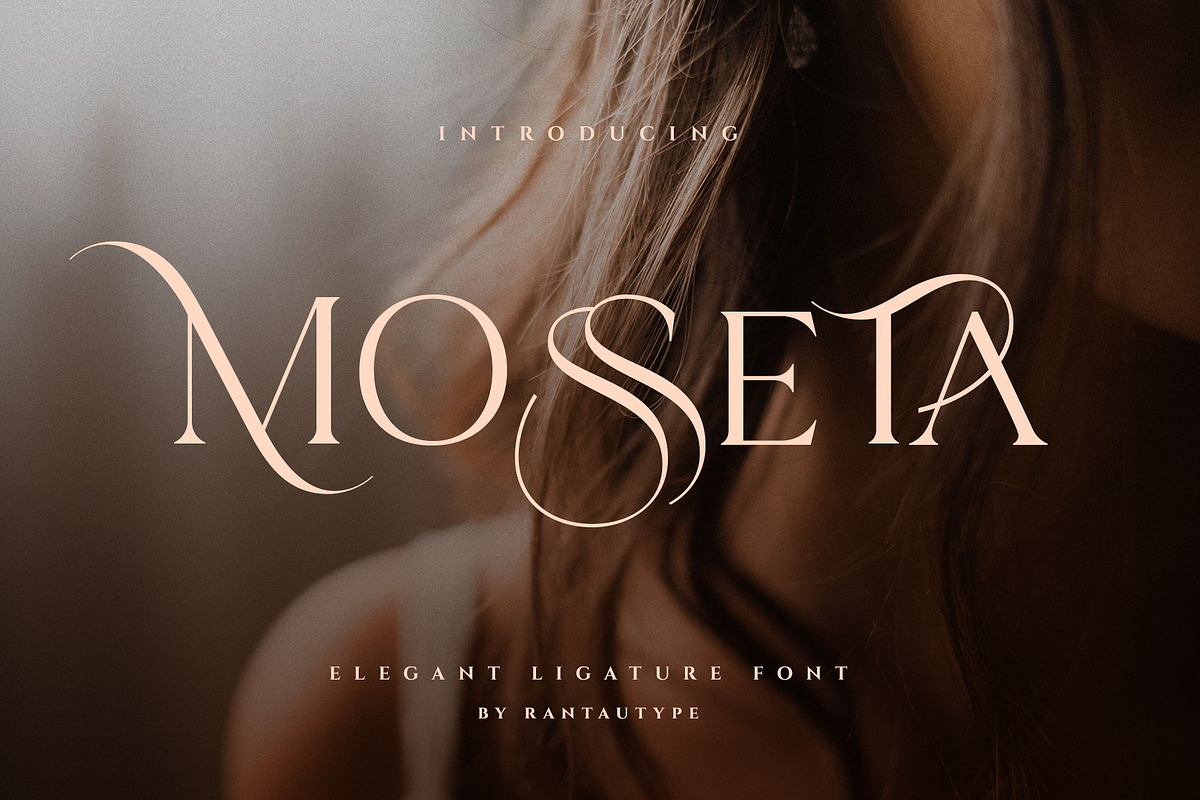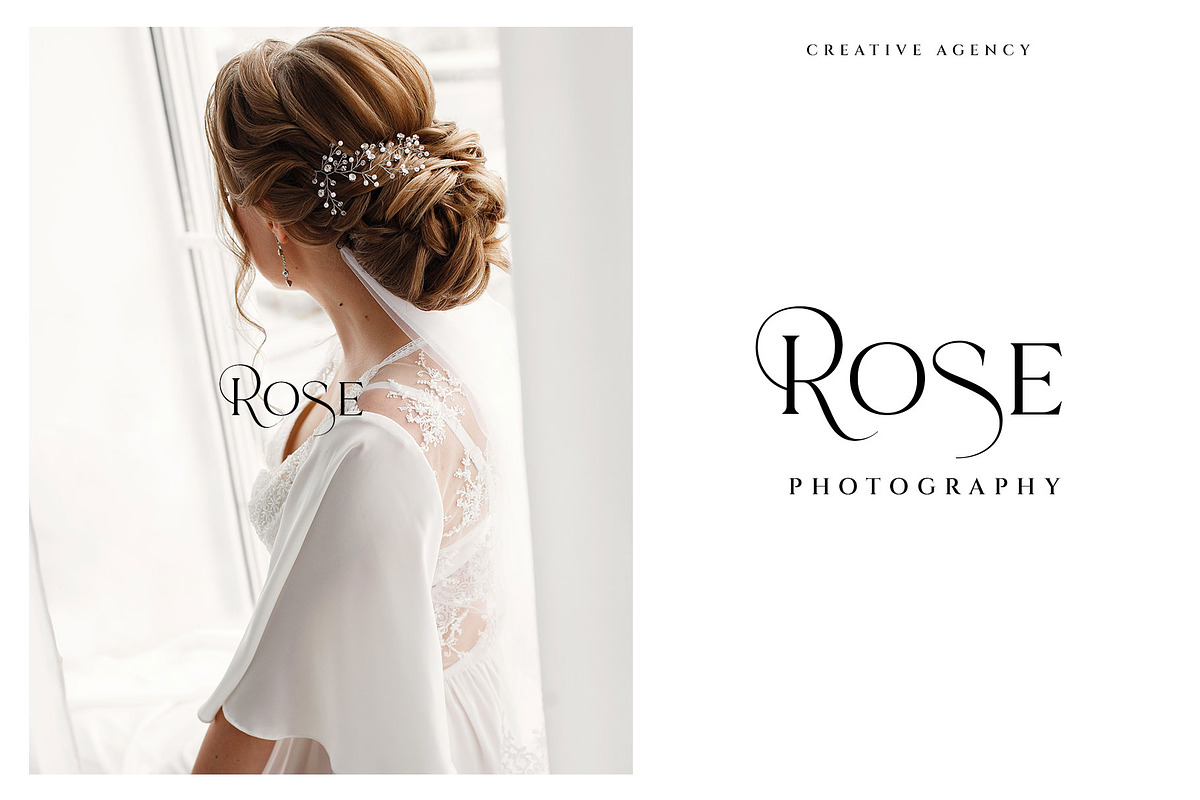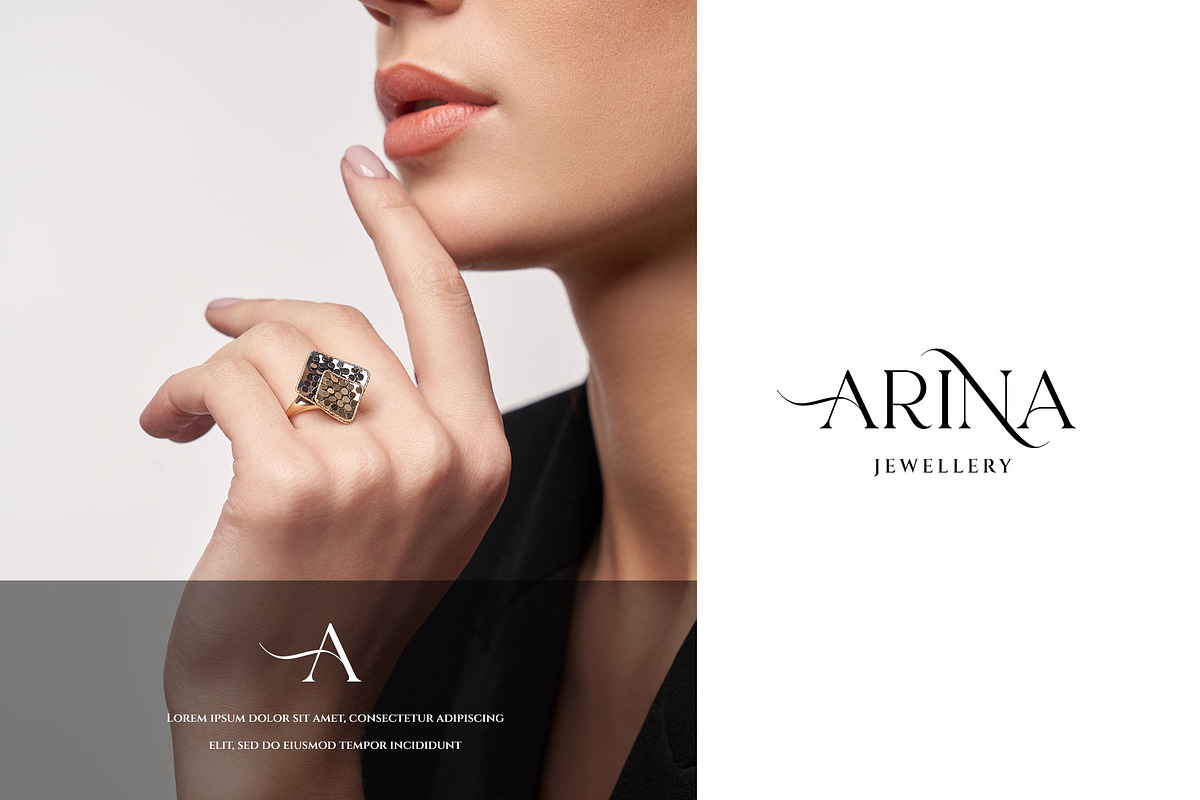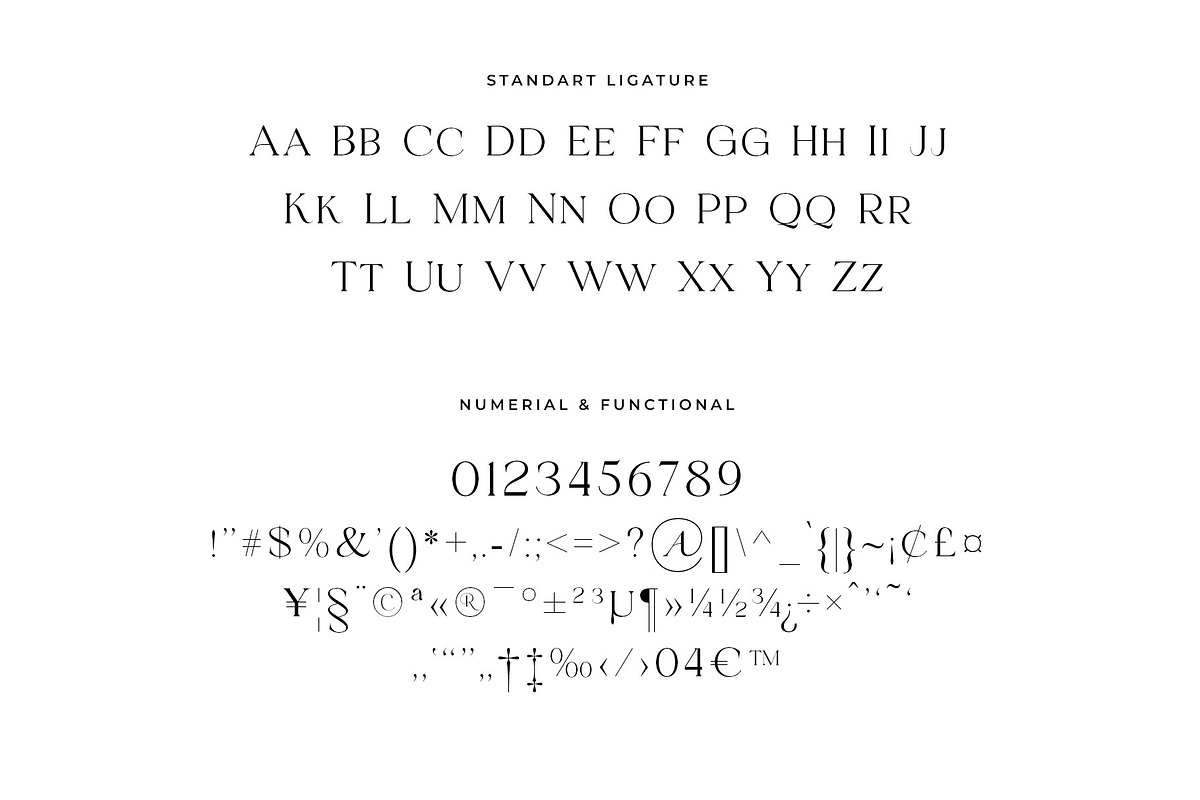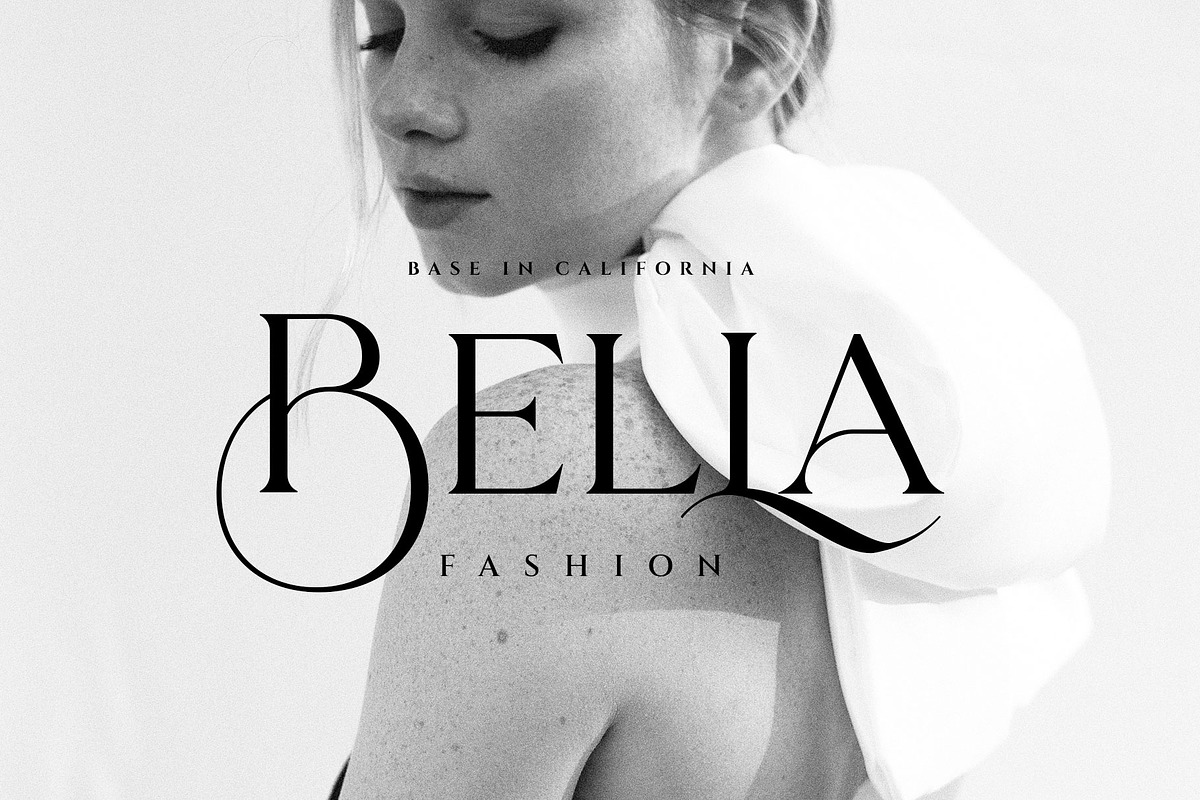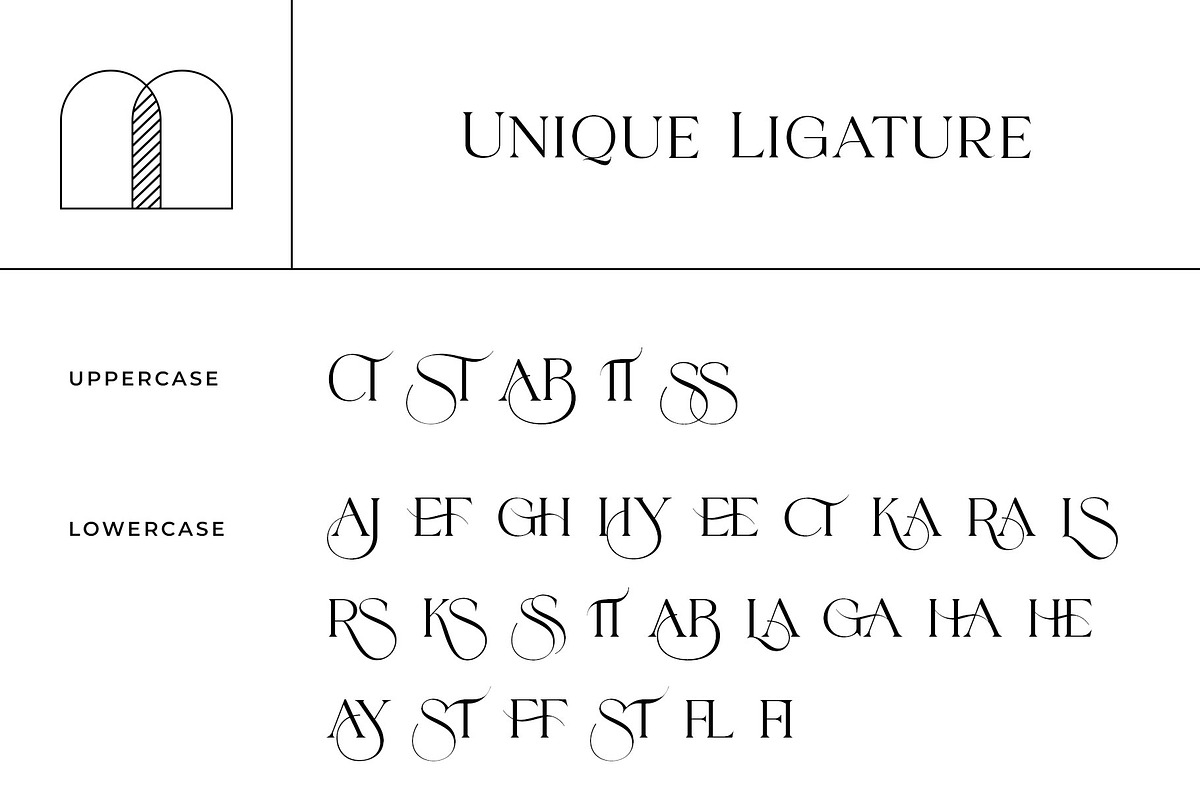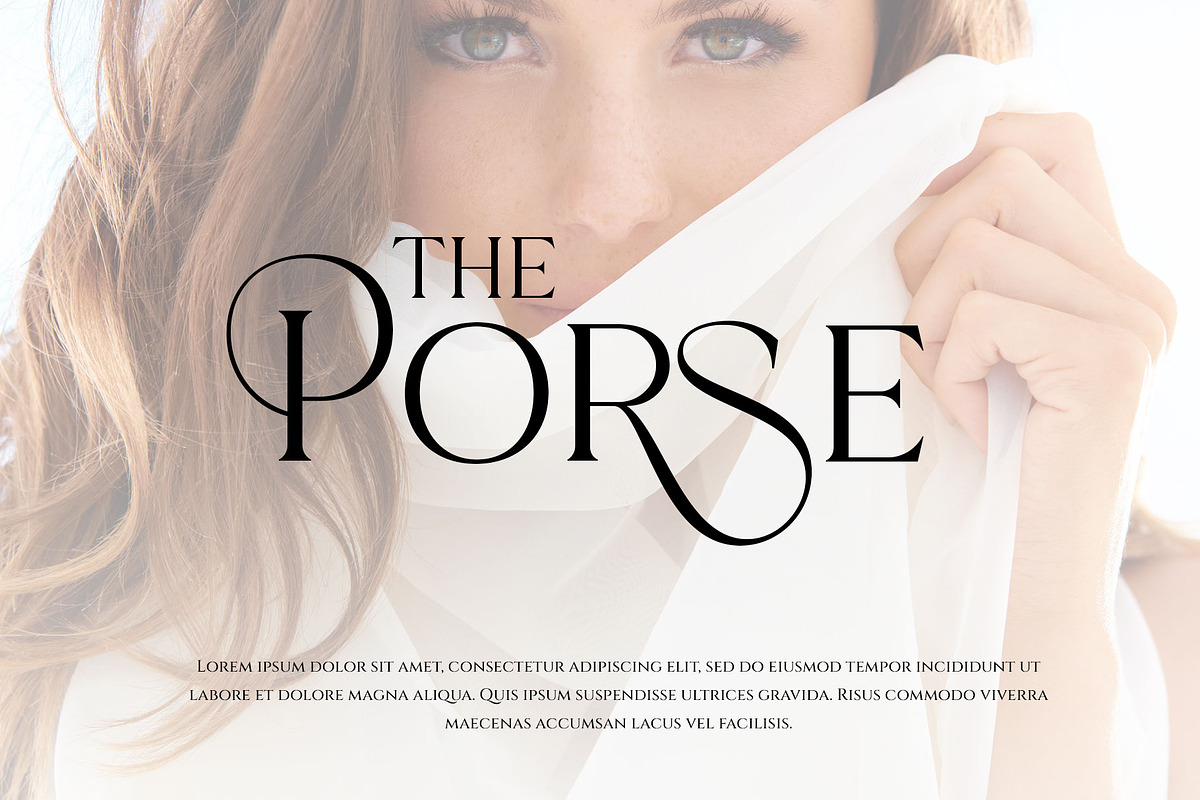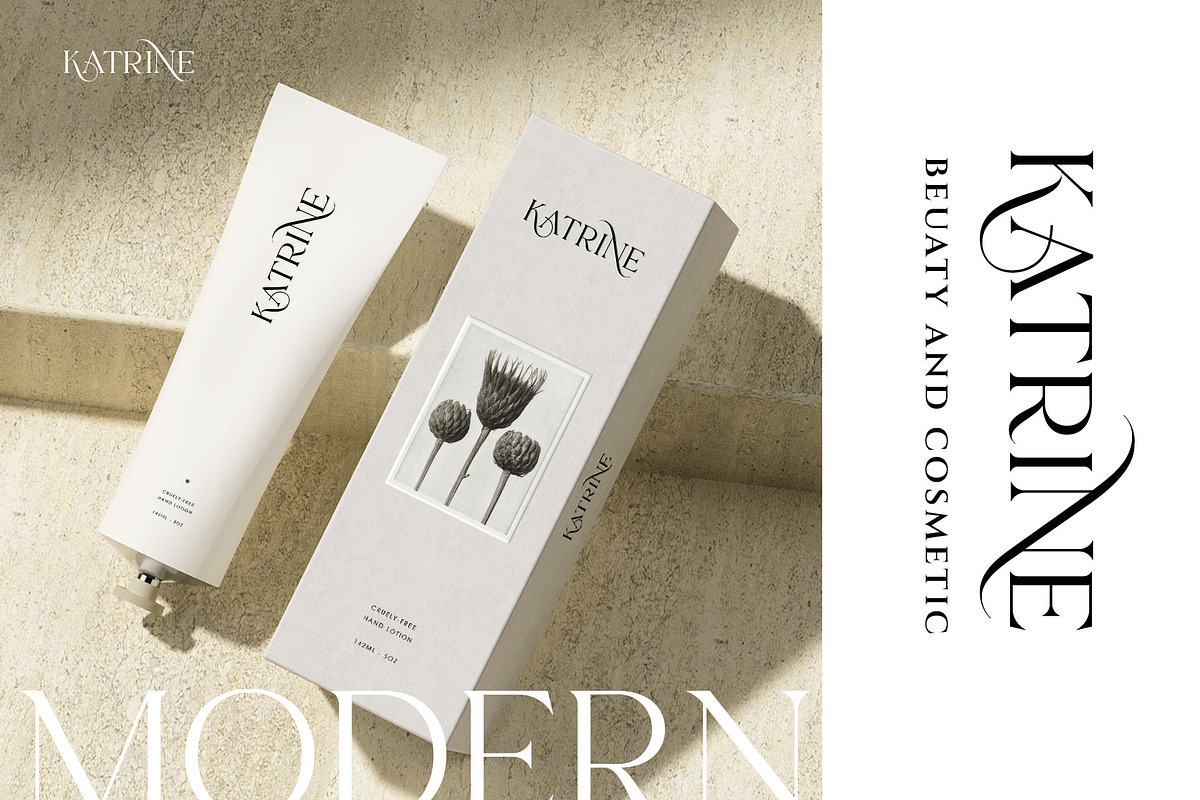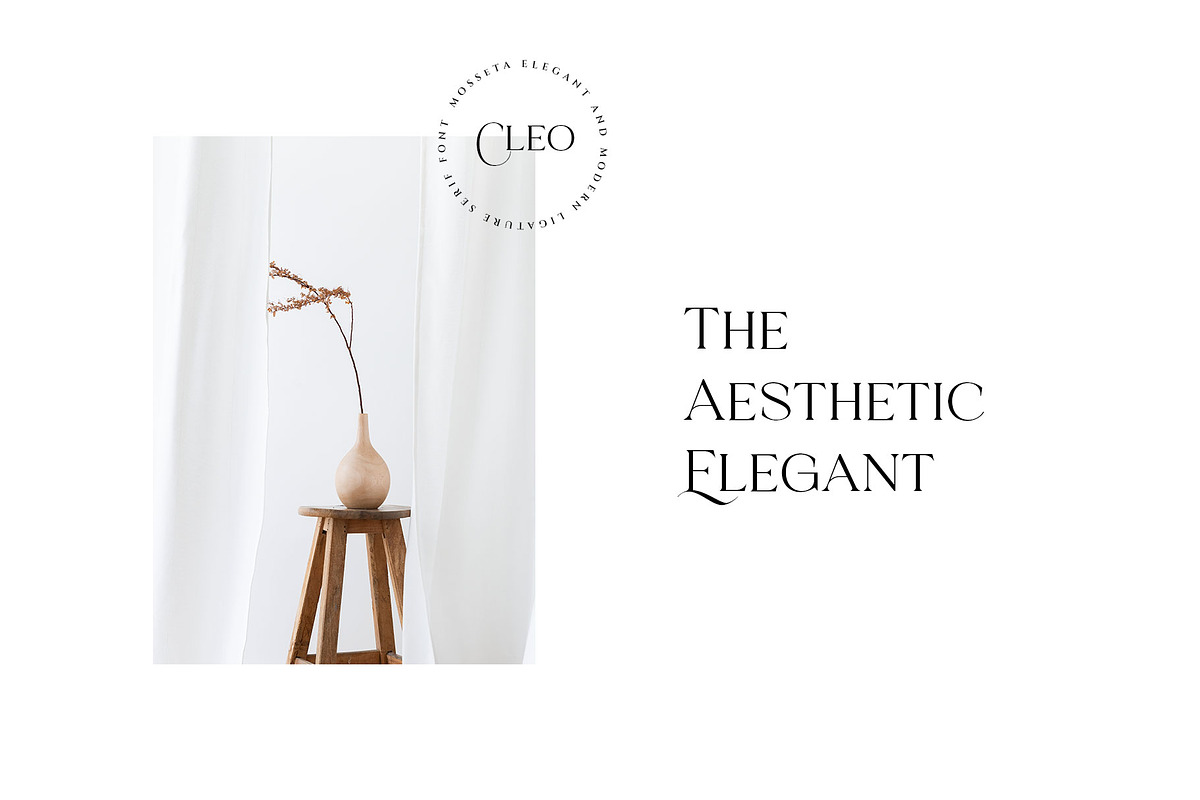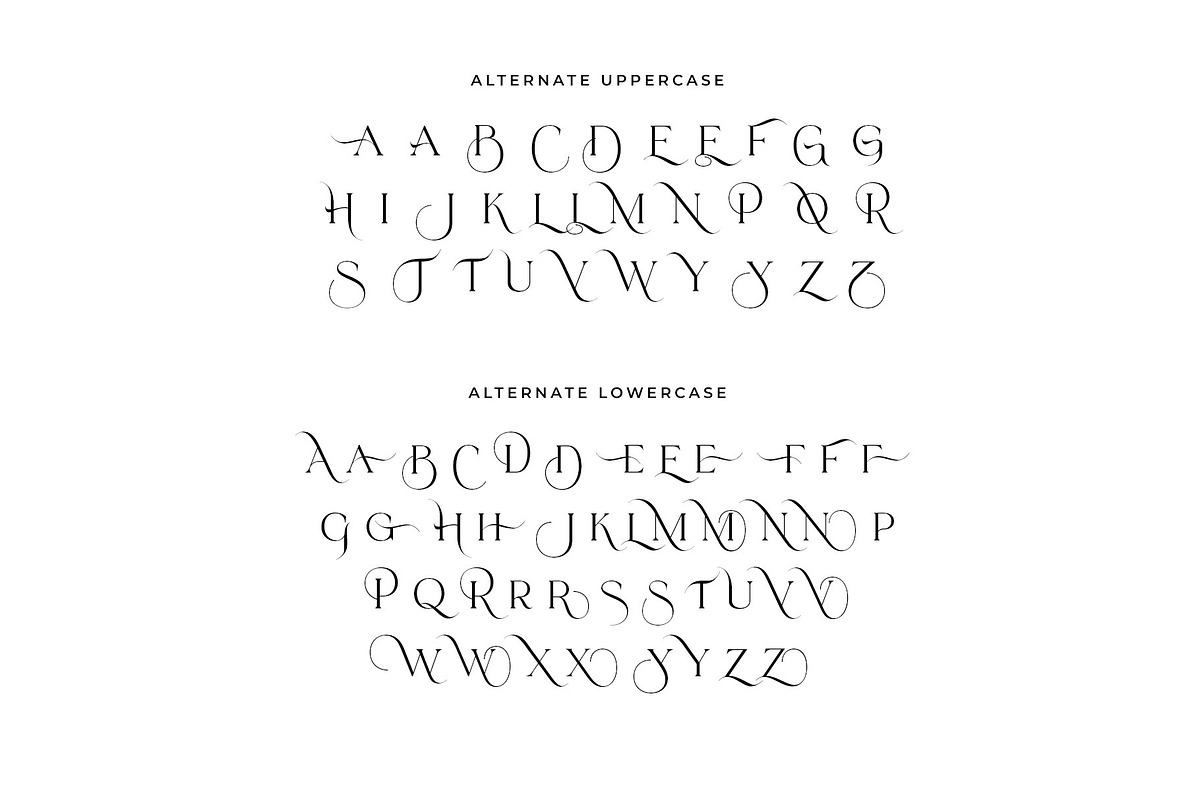
Mosseta Elegant Ligature Display
Hi Ladies and Gentleman ! Proudly present a elegant ligature serif font “Mosseta”, by rantautype.
Mosseta - a modern & elegant display serif with Sophisticated shape, unique alternate and ligature for optional. We love how ligature it look elegant and professional. We keep this font looks fashionable, elegant, luxury, premium, modern, catchy and easy to use.
Perfectly suitable for creating elegant, chic, lifestyle design such as logos, title, cover, branding, display and magazine, and more. Now you have more choice when using Mosseta for typography.
- Standar character A-Z and a-z
- Unique and premium Ligature
- International Multilinggual Support